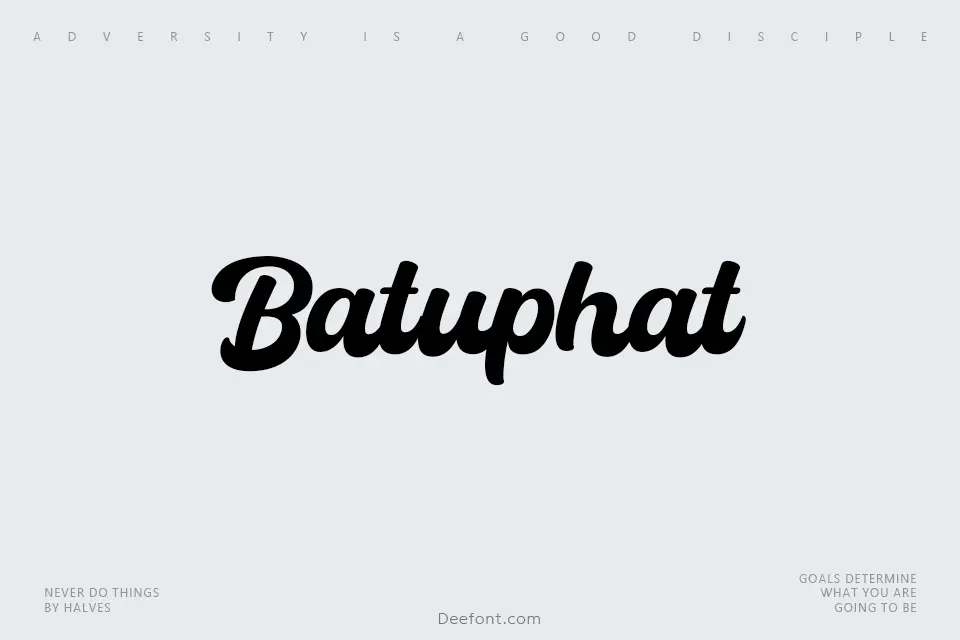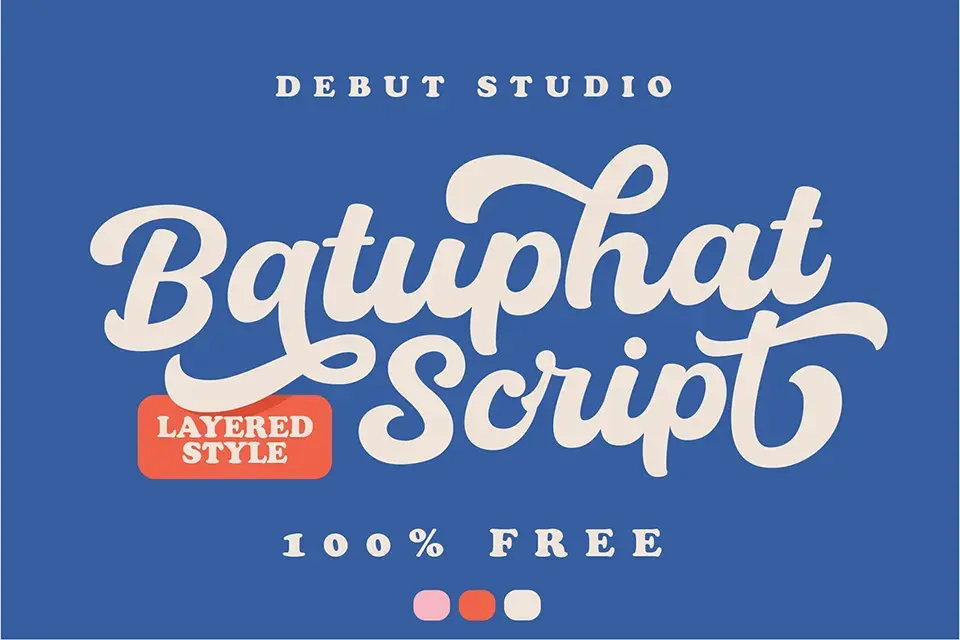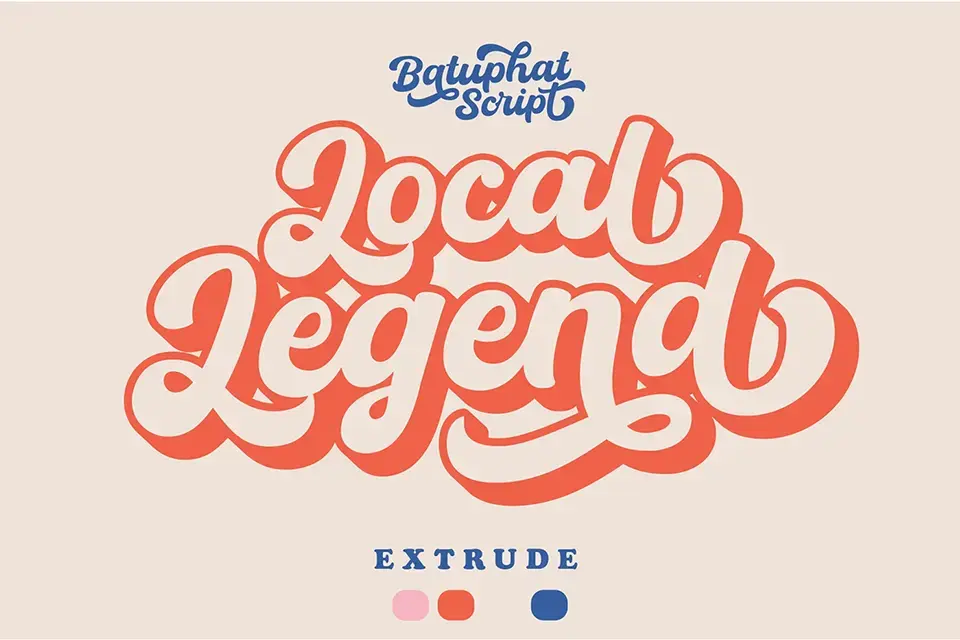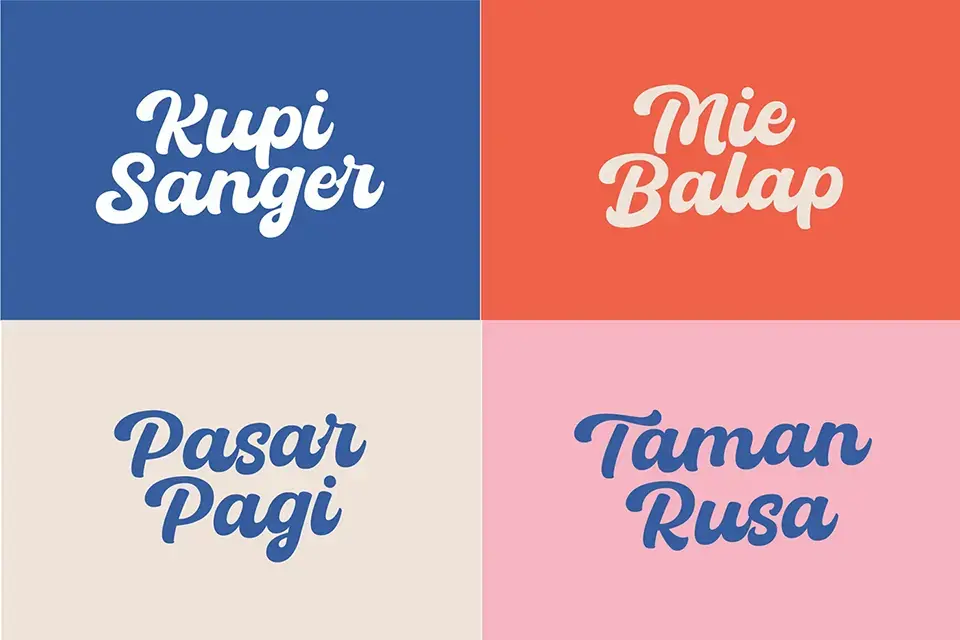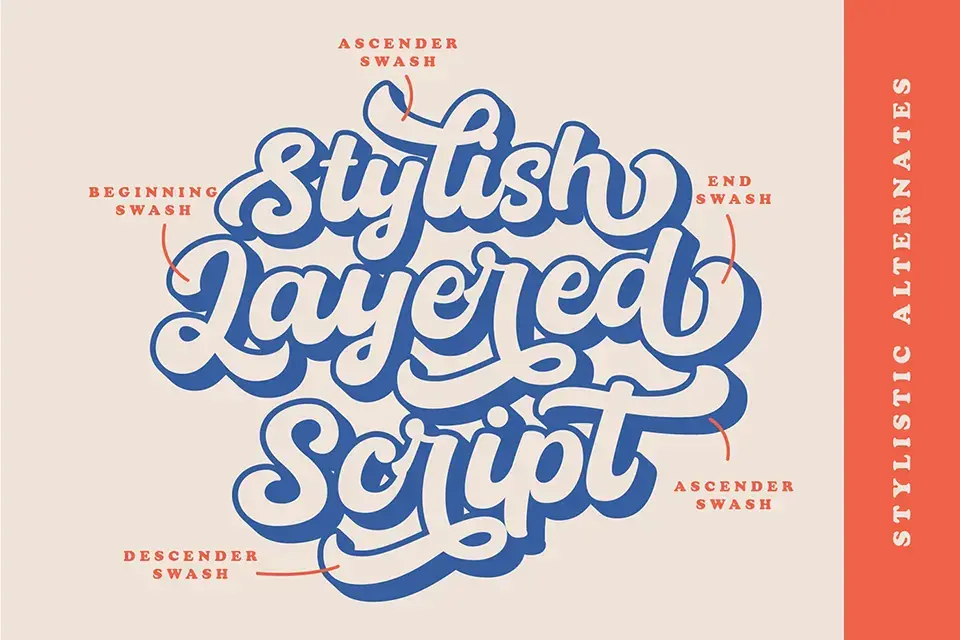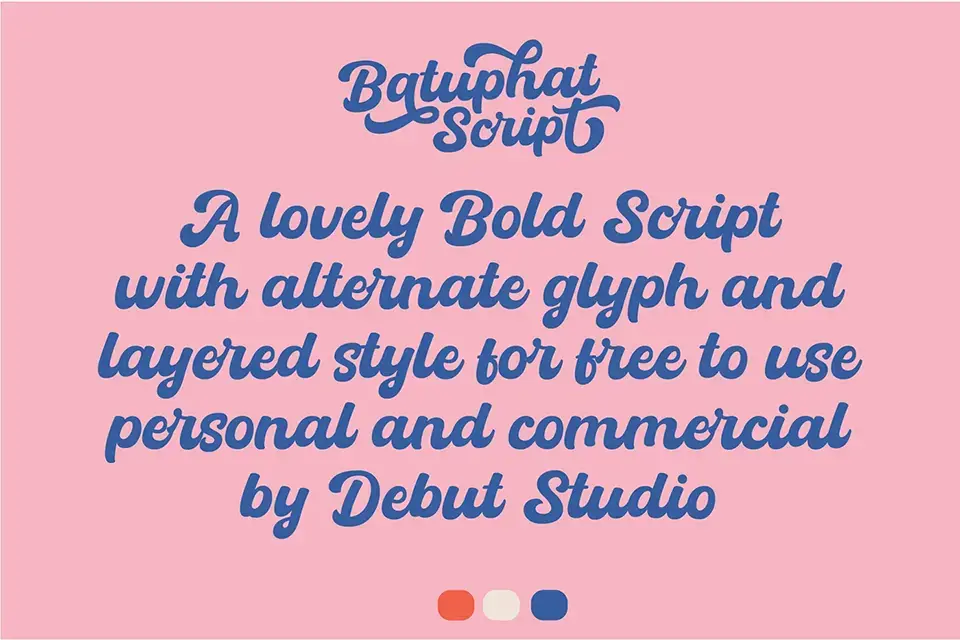
Batuphat Script Font
Batuphat Script is a striking bold display font that combines modern vintage aesthetics with natural handwritten flow, featuring two distinctive styles—regular and extruded—to create instant dimensional effects without additional design work. The font’s rounded, confident letterforms and layered construction make it ideal for creating posters, logos, branding materials, t-shirt designs, apparel graphics, social media content, and dramatic headline text. With its playful yet professional appearance, it suits young, passionate design projects seeking retro charm with contemporary flair, offering multiple language support and stylistic alternates for creative flexibility.